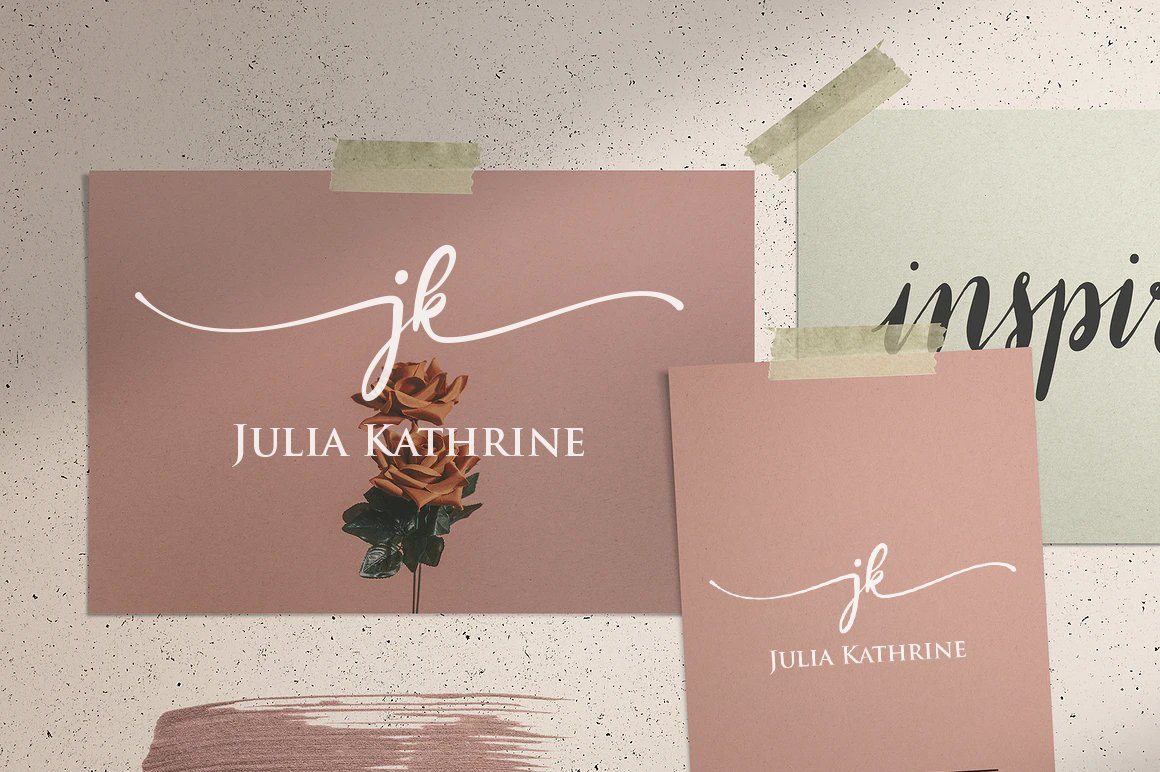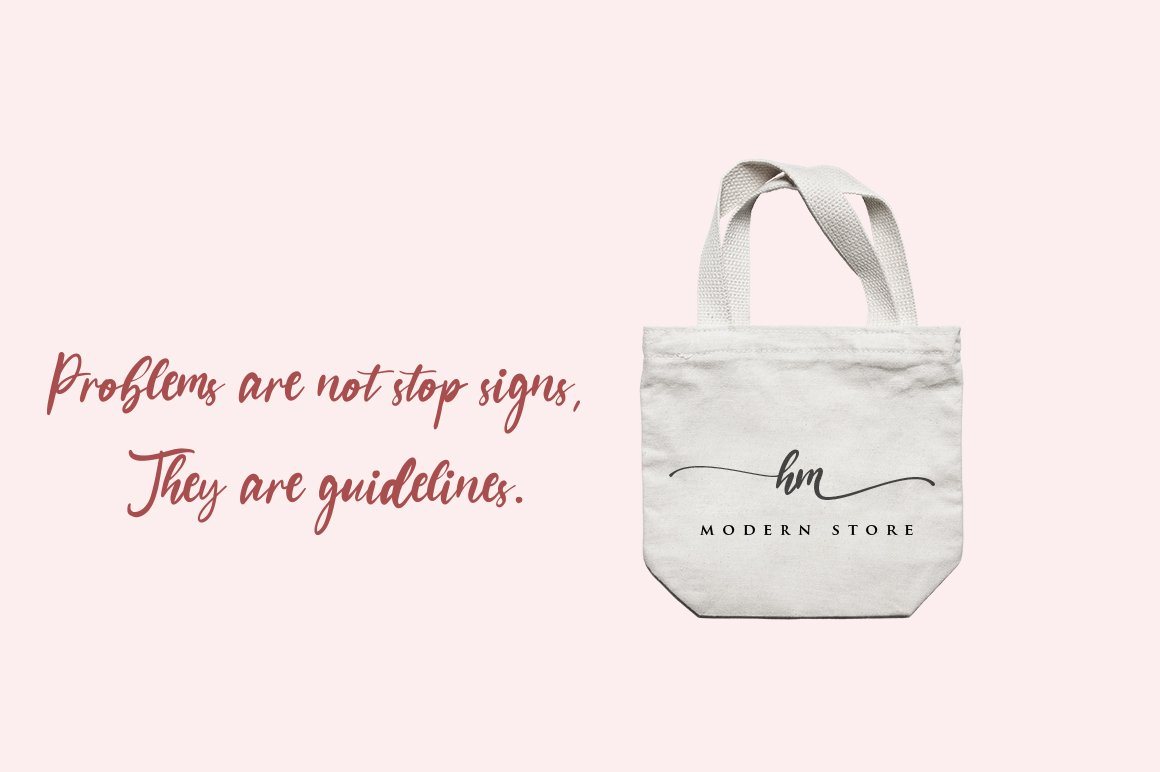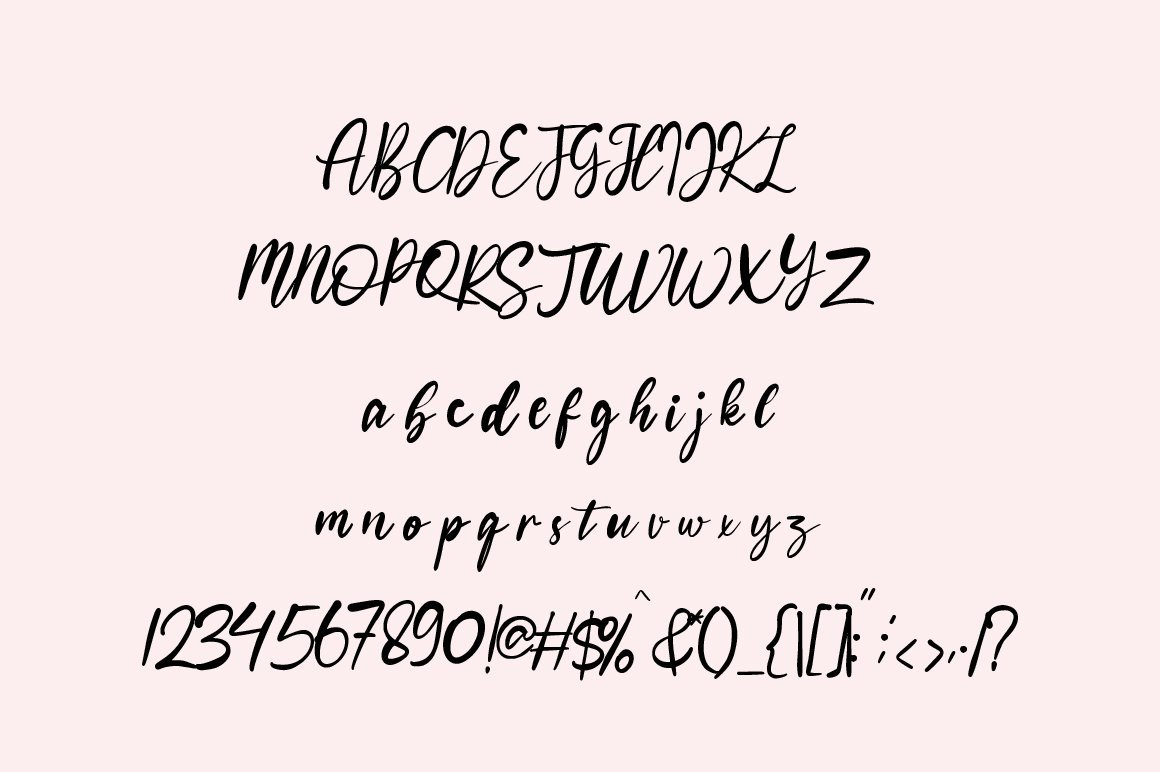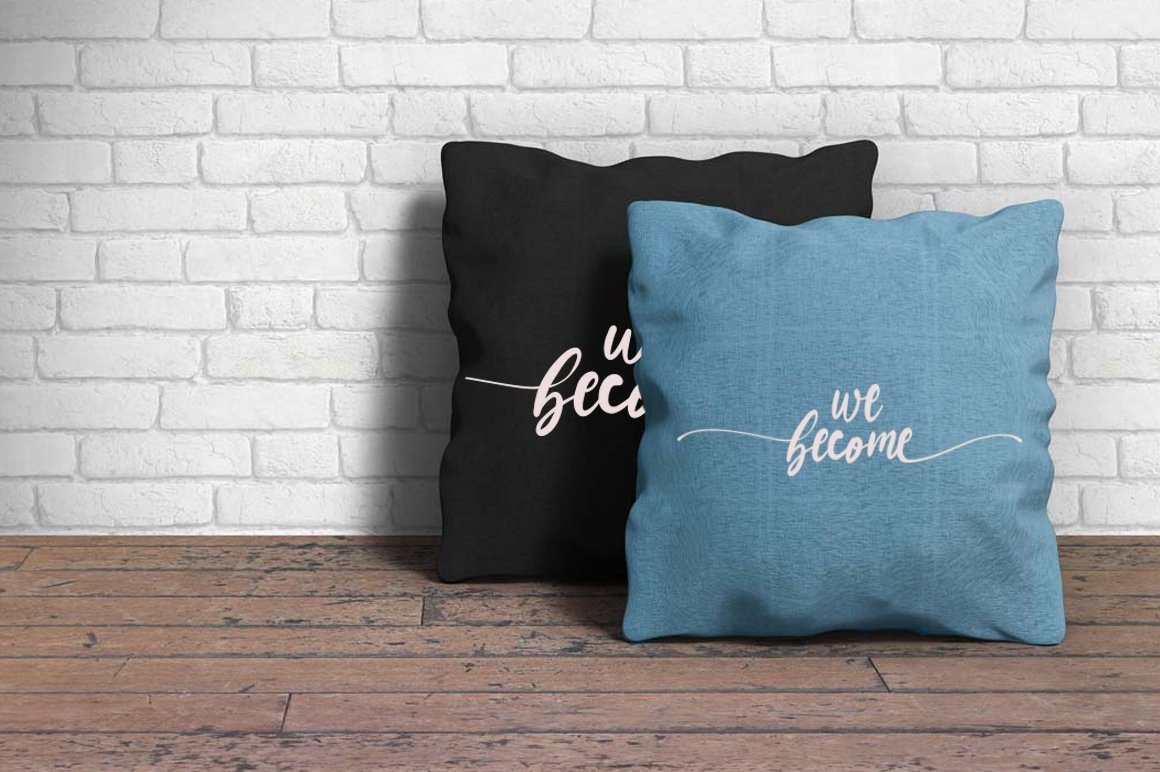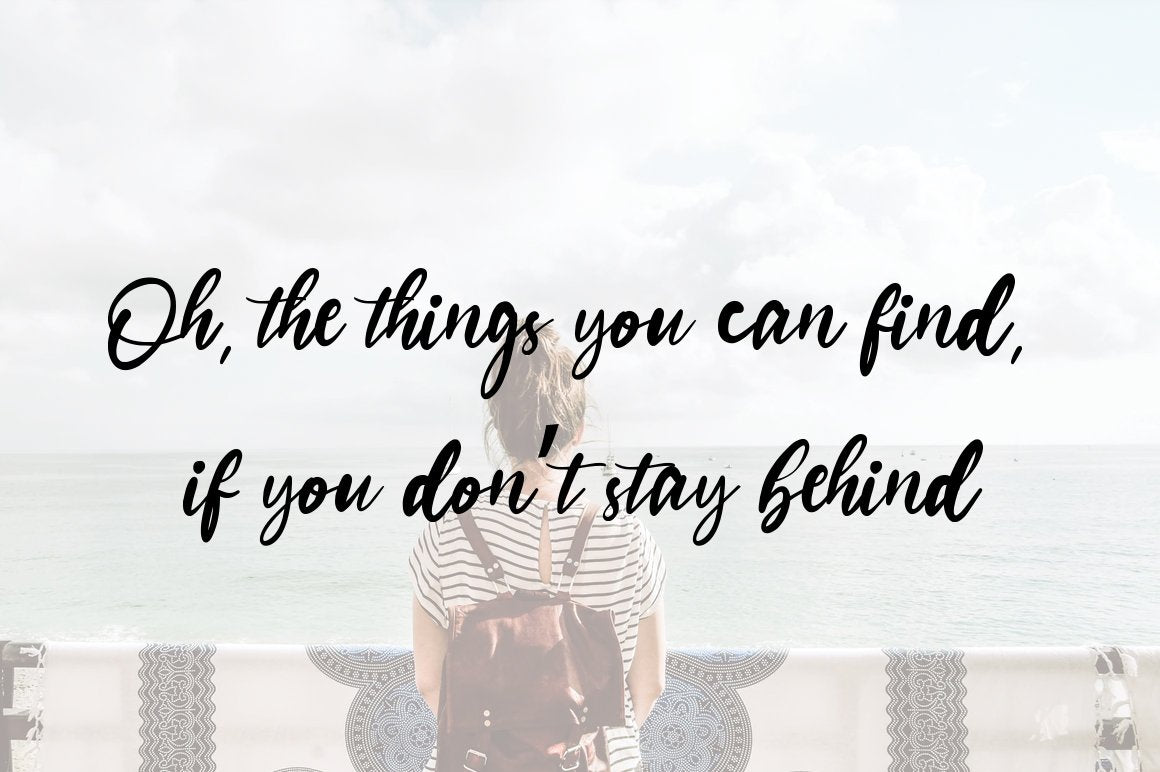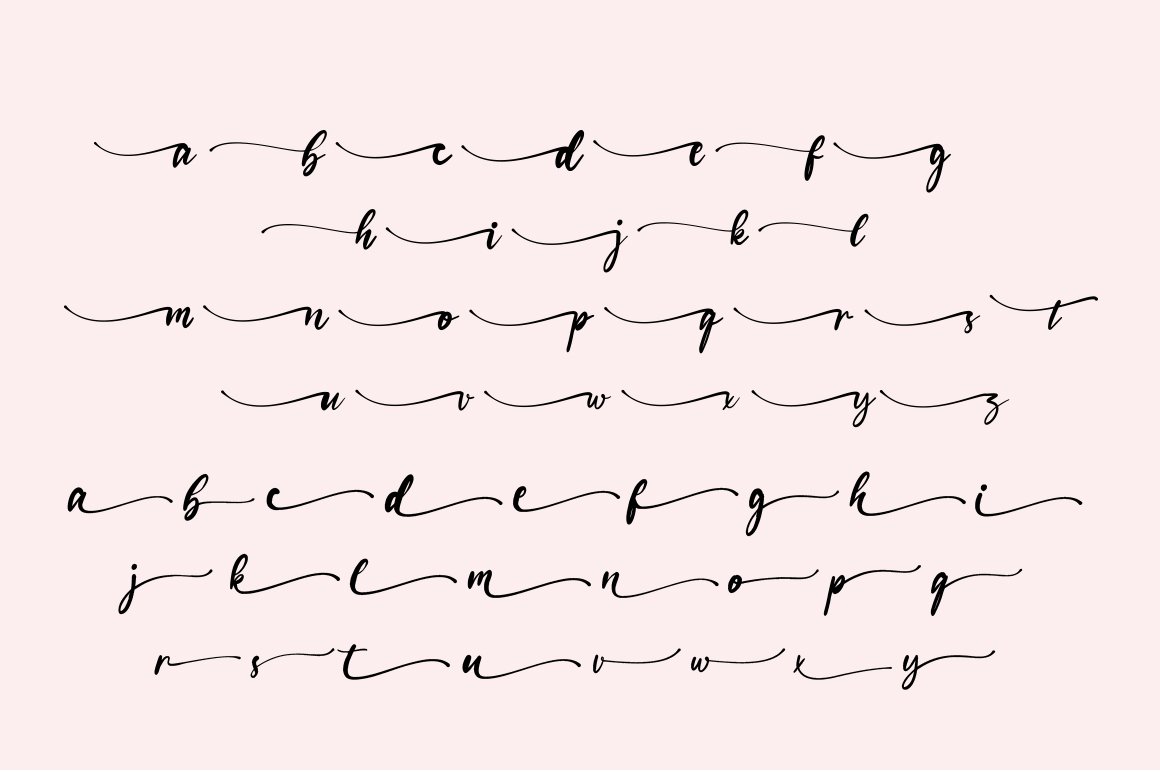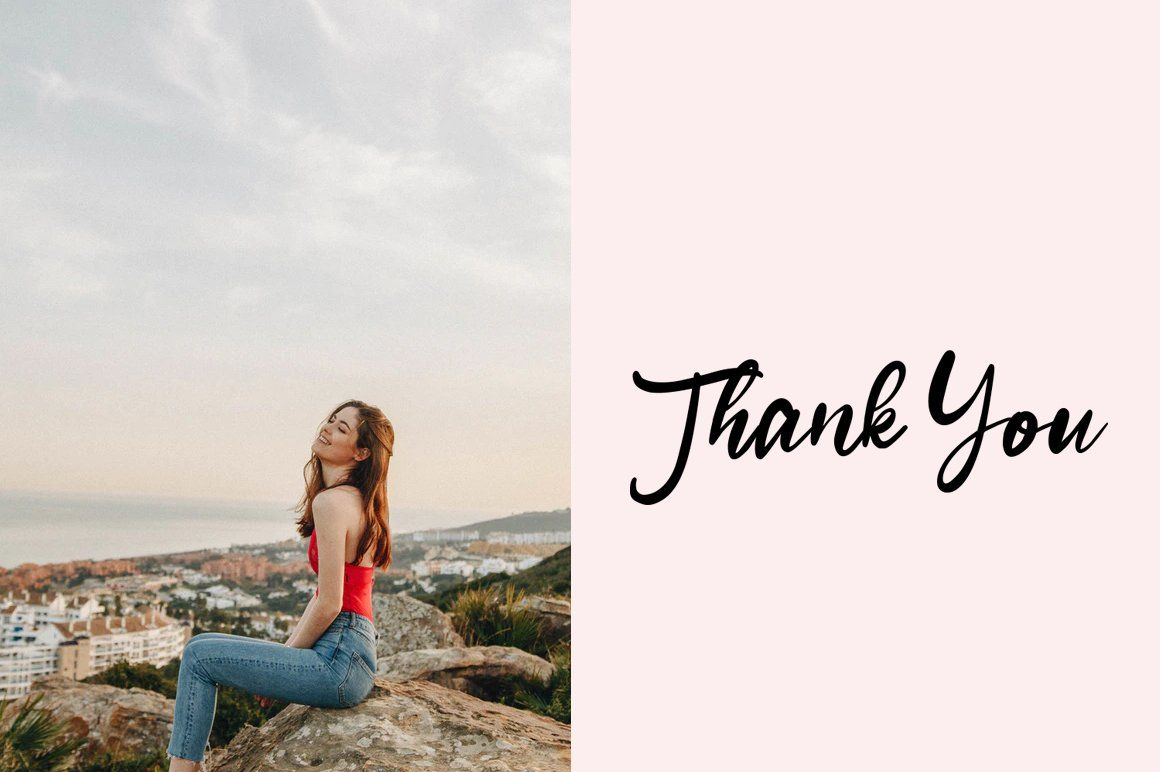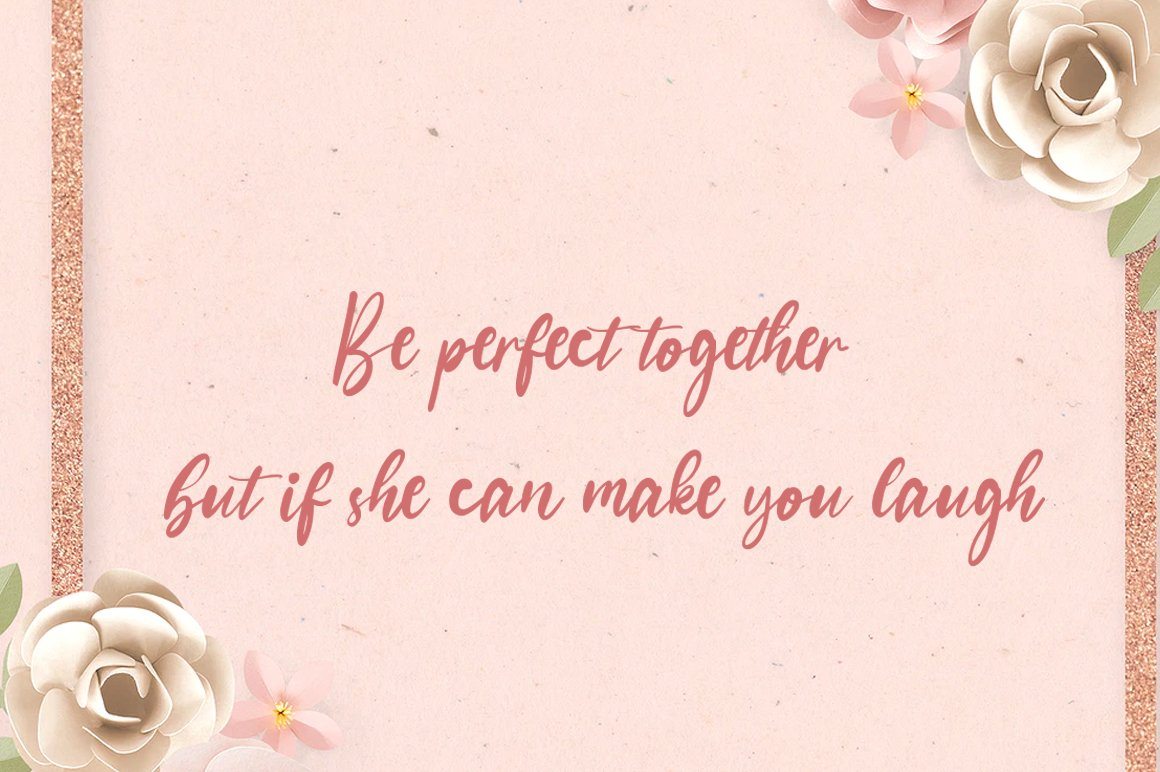
Bohemian Script Font
Hello…. Introducing Bohemian Script, style fresh and modern calligraphy script new. typeface attract interesting and so beautiful! Bohemian can be used in various applications such as Microsoft Word, corel draw, adobe illustrator, adobe photoshop. files are included Bohemian. OTF Bohemian. TTF